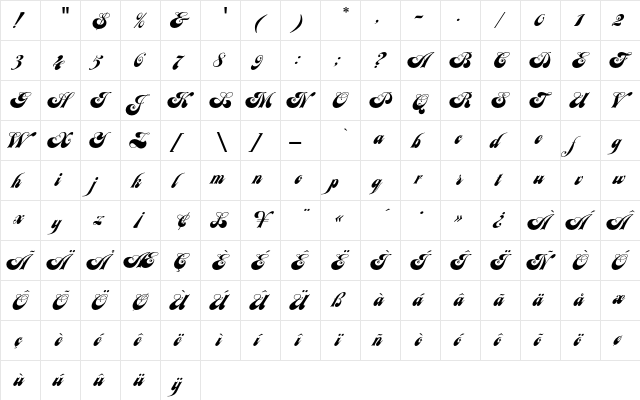
JuliaScriptEF Regular
Design Context for JuliaScriptEF Typeface
JuliaScriptEF brings a calligraphic fluidity to the page — its connecting strokes and expressive curves give it an unmistakably human quality.
Font Pairing: Combine JuliaScriptEF with a simple geometric sans for maximum contrast — the tension between flowing curves and clean structure is a classic typographic pairing.
Pro Tip: Pair JuliaScriptEF with a clean sans-serif for supporting text. The contrast between fluid script and geometric structure creates an elegant typographic hierarchy.